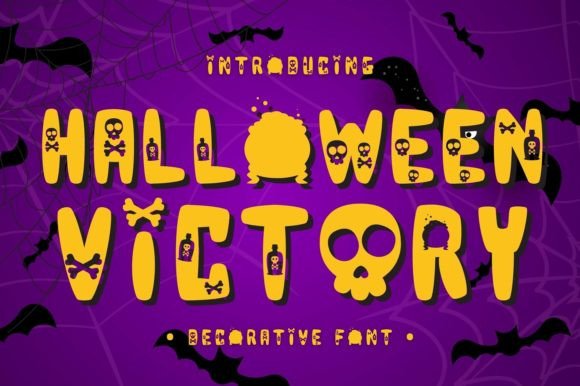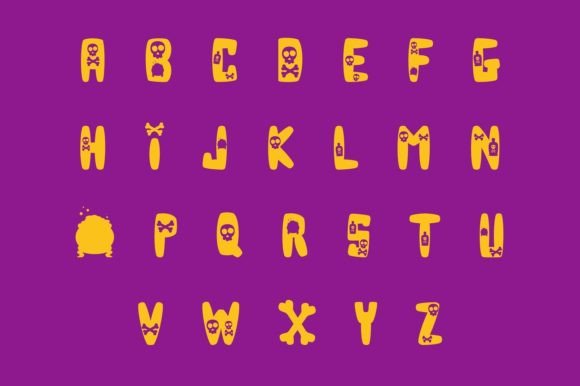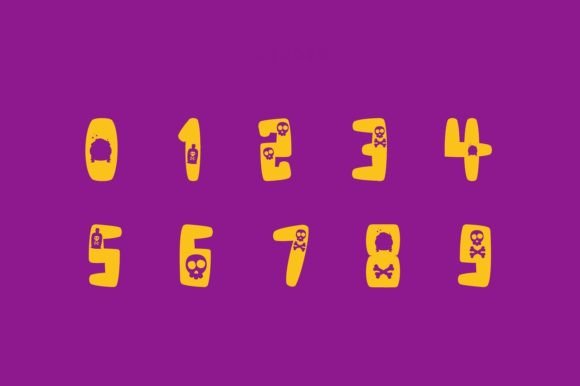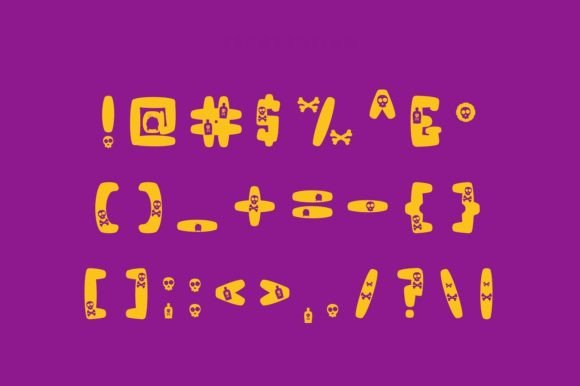
Halloween Victory Font
About the Halloween Victory Font
Get ready to be inspired by Halloween Victory Font, a fresh and dynamic typeface for modern creators. Halloween Victory is a scary and fun decorative font. It embodies playfulness and authenticity and is the perfect choice for all your favorite Halloween projects, or even for blog posts, logos, branding, ads, invitations, greeting cards, planners, photo albums, decorations, and much more. Add it to any of your designs, and enjoy the results!
Halloween Victory’s playful, yet slightly spooky, personality makes it ideal for headlines, posters, and packaging designs requiring a fun, attention-grabbing aesthetic. It also works well for branding projects targeting a younger demographic or those with a whimsical approach. However, its decorative nature makes it unsuitable for body text or UI elements where readability is paramount. Avoid using it in long paragraphs or situations requiring small point sizes.
This font pairs well with clean sans-serif fonts like Open Sans for a balanced contrast, offering readability where needed. For a more playful feel, consider pairing it with a rounded geometric sans-serif such as Lato. If a more elegant touch is desired, a delicate serif like Merriweather can complement its character. Avoid pairing it with other highly decorative fonts to prevent visual overload.
The font’s overall energy is bold and mischievous, best suited to projects that embrace a light-hearted, yet slightly spooky, vibe. Think Halloween-themed events, children’s book illustrations, or brands selling quirky, autumnal products.
Halloween Victory Font Usage Examples
Halloween Victory Font Example